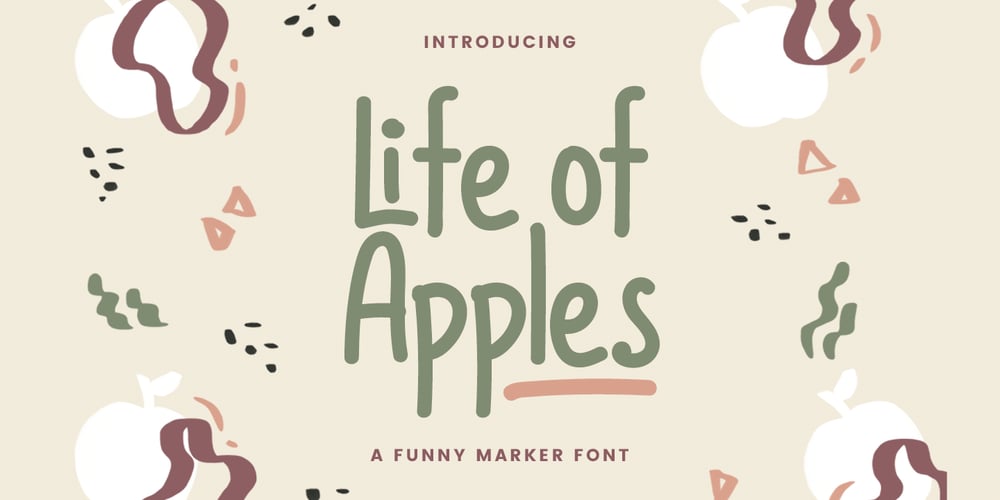
Life Of Apple Font Family was designed by Hilmius Akbar and published by Typefactory. Life Of Apple contains 1 styles and family package options. Life of Apples is a Fun Handwriting typeface, perfectly suitable for creating quotes, kids book, lifestyle design such as logos, title, magazine, and more.